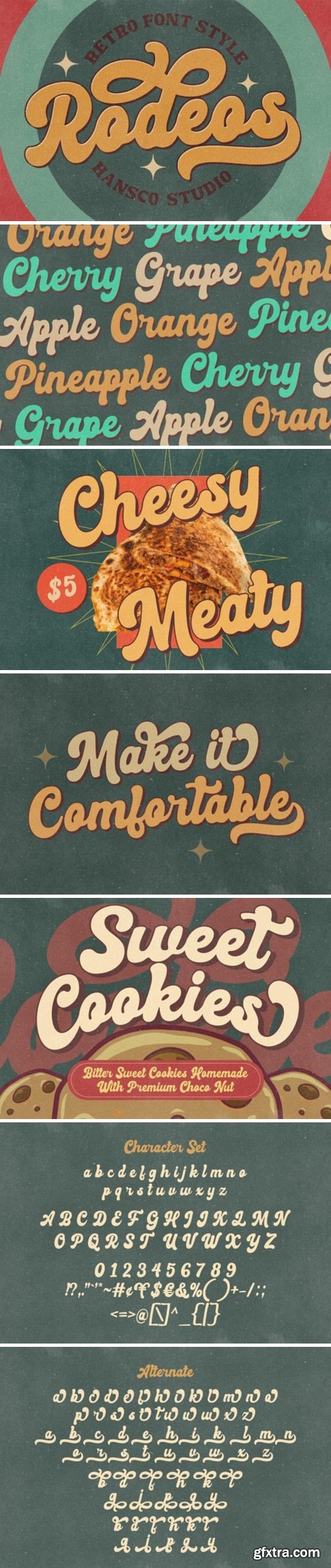
Rodeos is a lettering retro vintage font. You will get alternate characters such as swash on some characters. Equipped with all complete characters ranging from uppercase letters, lowercase letters, numbers, punctuation marks and multi-lingual support, this font is ready to be used in any project.